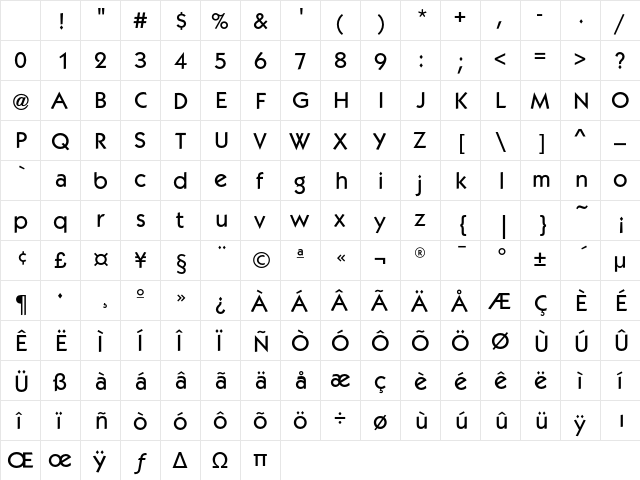
Complete KabelEF-Medium Regular glyph index. Displaying only characters natively supported by KabelEF-Medium Regular font.
KabelEF-Medium is a composed and adaptable typeface that performs quietly and consistently across a wide range of design contexts.